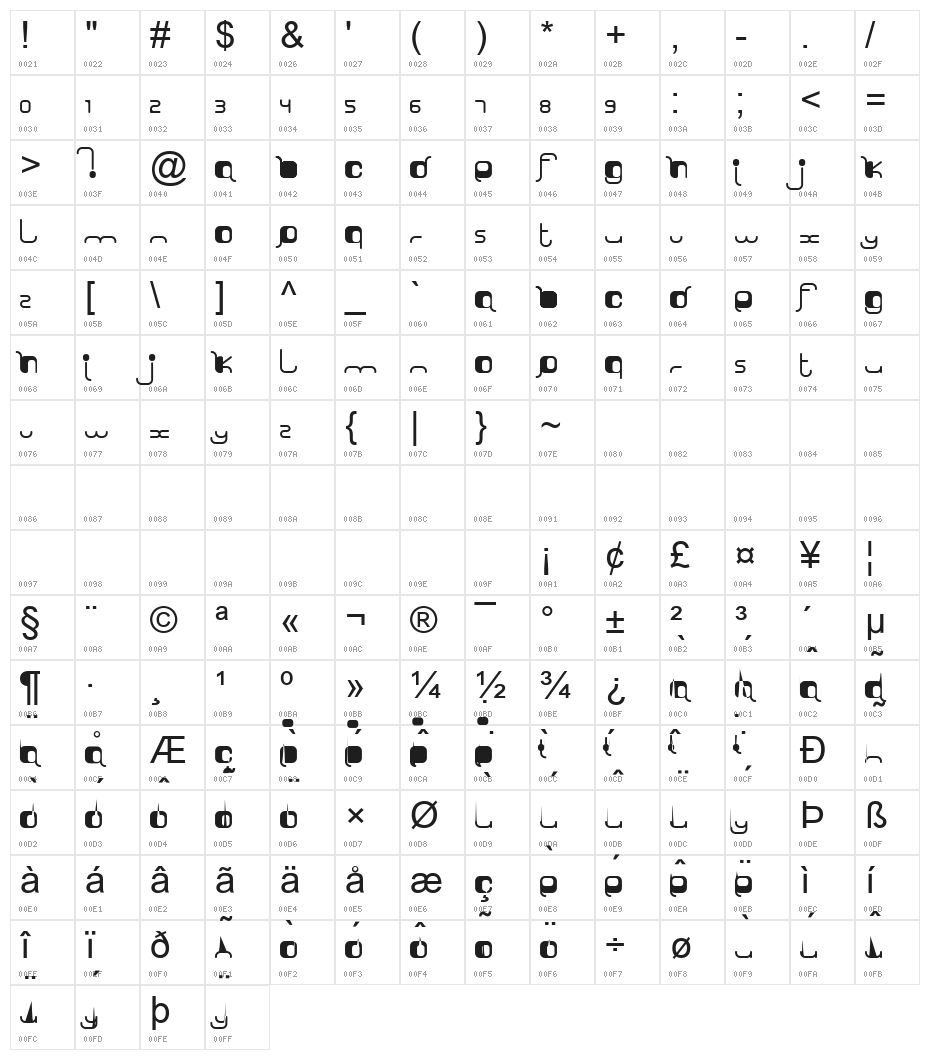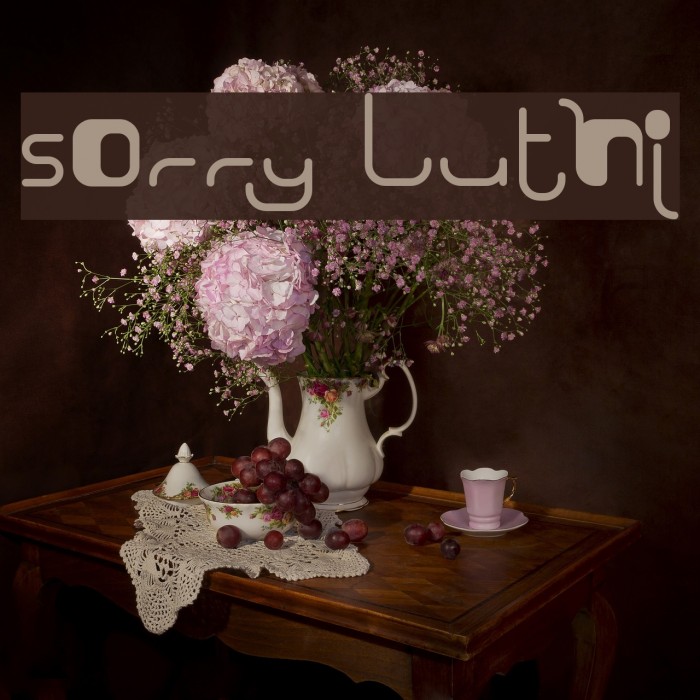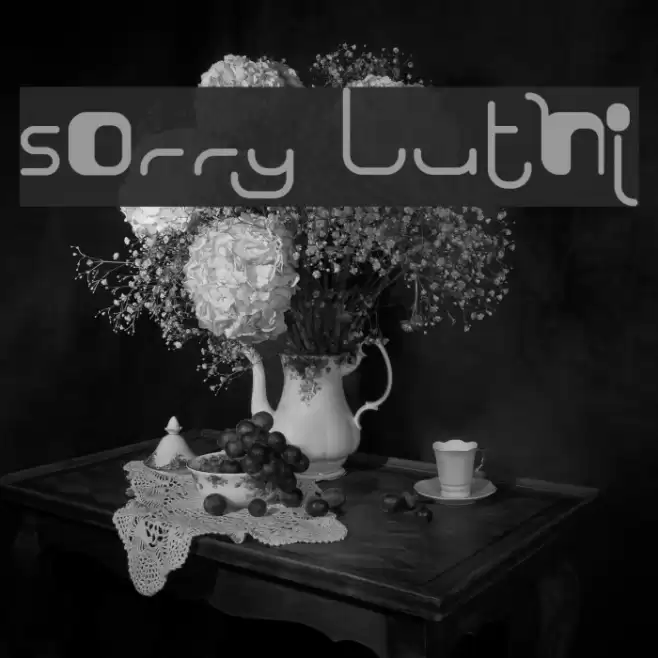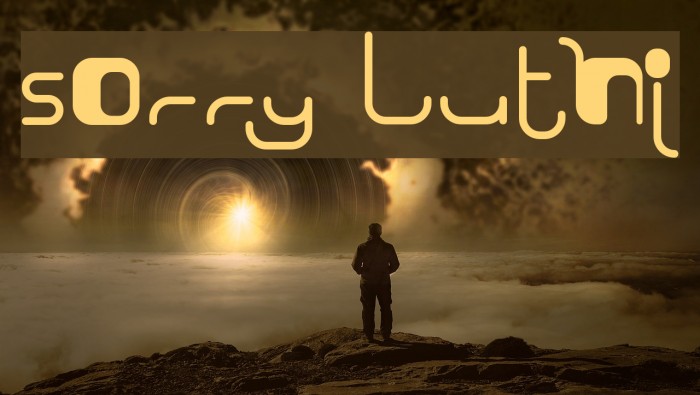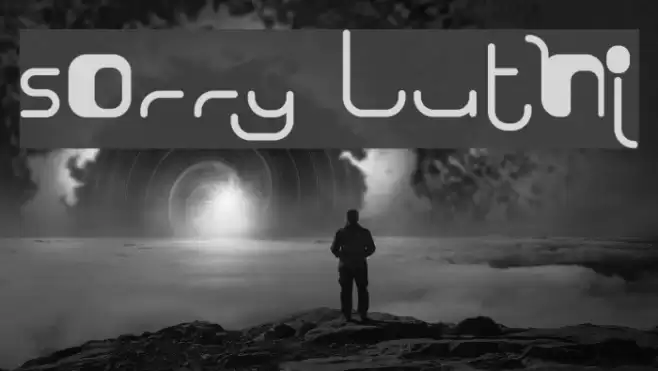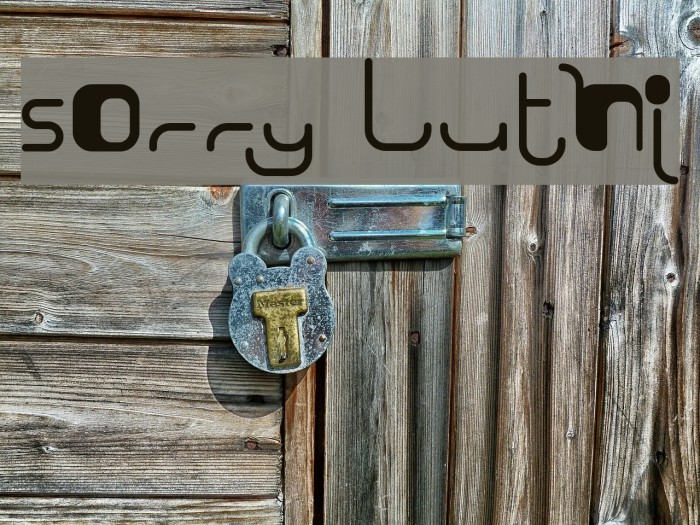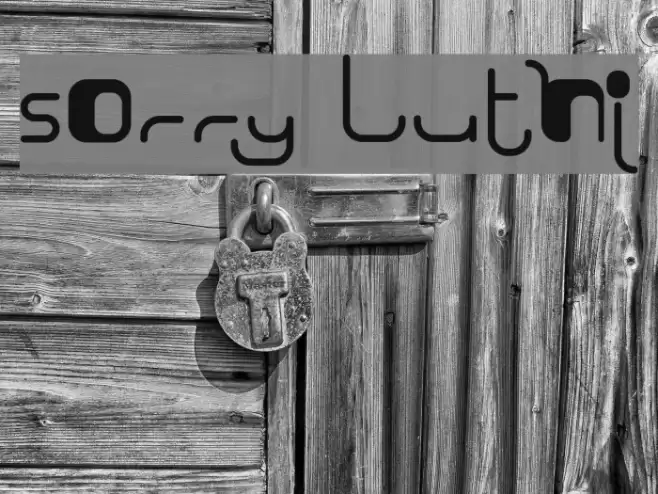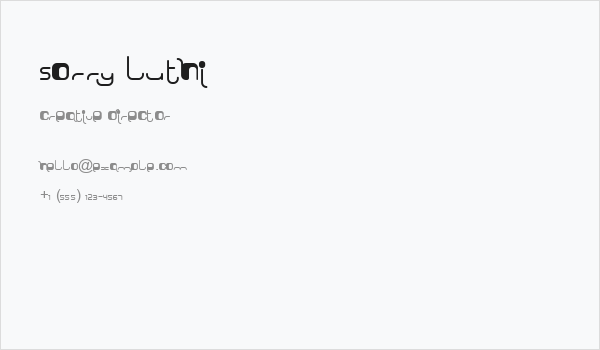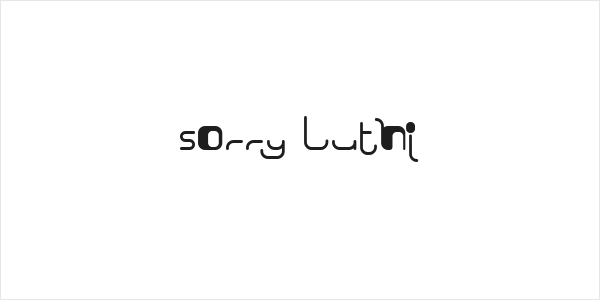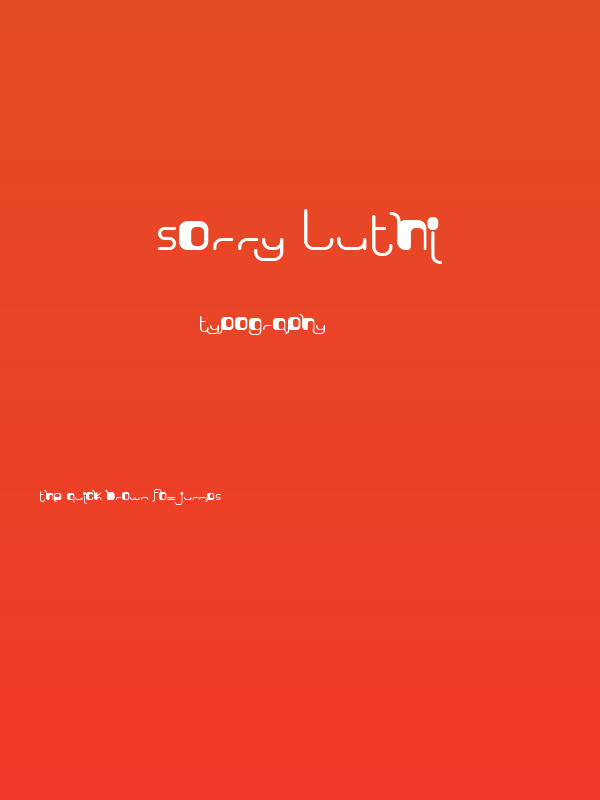
Sorry Luthi Font
Sorry Luthi Description
This font features a unique and modern design with a futuristic flair. The characters are bold and geometric, with rounded edges and a consistent thickness throughout. The uppercase and lowercase letters maintain a uniform style, creating a cohesive look. The numbers and special characters follow the same design principles, ensuring visual harmony across all elements. The font's distinctive style makes it stand out, with a playful yet sophisticated appearance. Its clean lines and structured form make it suitable for various creative applications.
Fonts by Laurent Mouy
| Proposed Projects | Ideal for branding, posters, digital art, and futuristic-themed projects. |